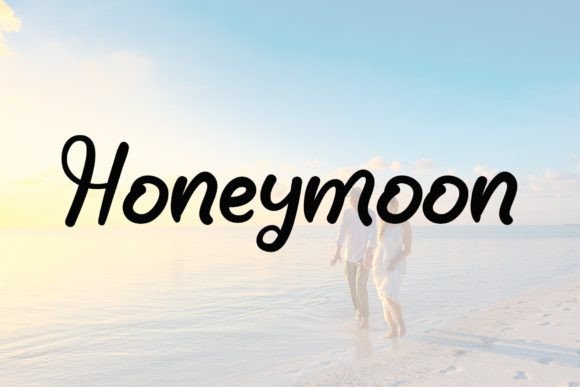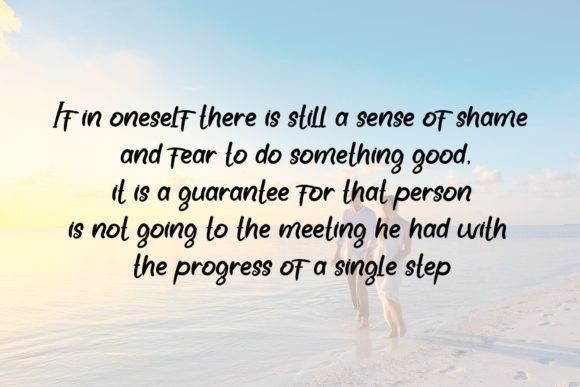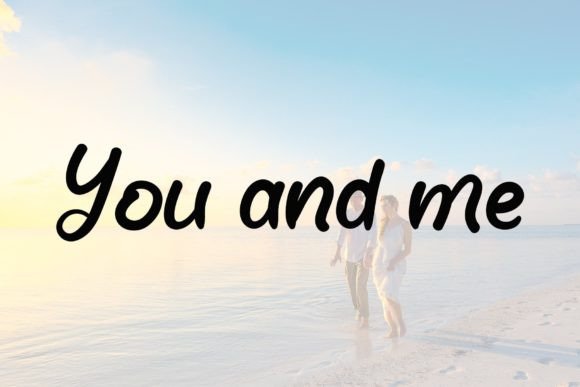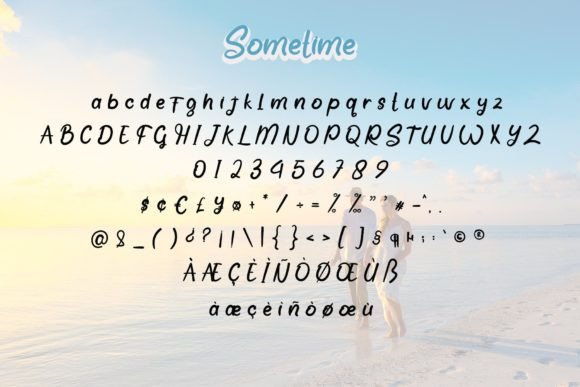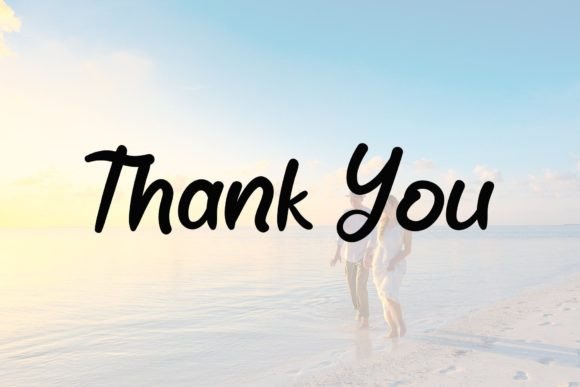
Sometime Font
About Sometime Font
Introducing Sometime, a delightful and friendly handwritten font designed to infuse a sense of fun into your designs. With its playful style, Sometime has the power to turn any design idea into a true standout. Get inspired by its unique charm and use it to create lovely designs that capture attention with a touch of creativity.
Sometime is more than just a set of letters; it’s a creative tool that brings a playful and friendly vibe to your projects. Whether you’re working on posters, social media graphics, invitations, or any other creative endeavor, Sometime adds a sense of joy and approachability.
Embrace the distinctive charm of Sometime as you explore its creative possibilities. Let it be the spark that transforms your design concepts into visually appealing and lovable creations. Whether used for headlines, logos, or any other design element, Sometime ensures that your projects exude warmth and personality.
Incorporate Sometime into your design toolkit and witness how it can elevate your ideas into something extraordinary. Let the fun and friendly vibes of this handwritten font bring a new level of creativity and joy to your projects, making them not only visually appealing but also filled with a delightful charm that captivates and engages.